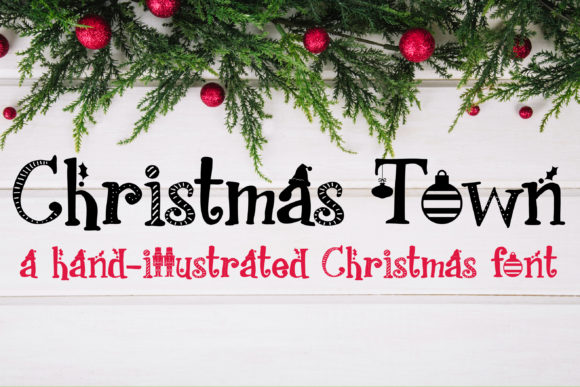
Merry Christmas! Step into a joyful winter wonderland with PN Christmas Town Font, a hand-illustrated script font created by the talented Illustration Ink. This jolly font is filled with adorable Christmas illustrations, each one meticulously drawn to capture the warmth and magic of the holiday season.
Indulge in the charm of hand-lettered Christmas cards, delightful holiday invitations, and festive social media posts, all adorned with the whimsy of PN Christmas Town Font. Picture your Christmas greetings adorned with snow-kissed letters, candy cane swirls, and playful reindeer. It's like sprinkling a touch of Christmas cheer into every word you write.
Be it a cozy holiday party invitation or a heartfelt Christmas letter to loved ones, PN Christmas Town Font transforms your words into visual feasts. Let your imagination soar as you create stunning Christmas posters, eye-catching holiday flyers, and heartwarming Christmas decorations. This font isn't just letters; it's a festive adventure waiting to unfold in your designs.
Spread the Christmas spirit with PN Christmas Town Font, the perfect companion for all your holiday creations. Ignite smiles and warm hearts with every design you create, bringing the joy of Christmas to life. So, embrace the magic of this season, download PN Christmas Town Font today, and let the festive illustrations dance across your designs!